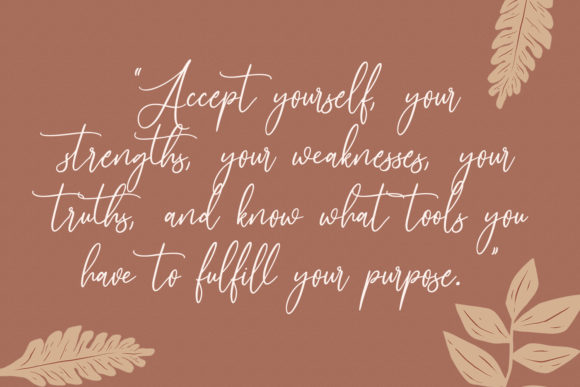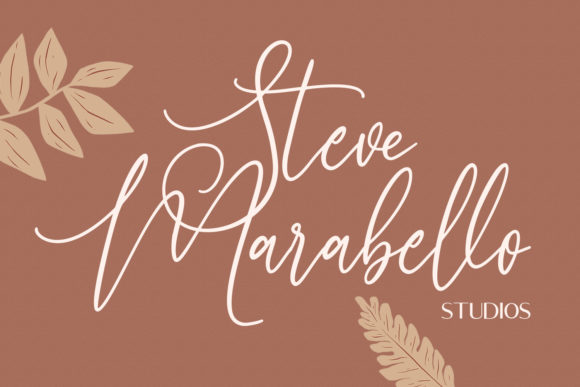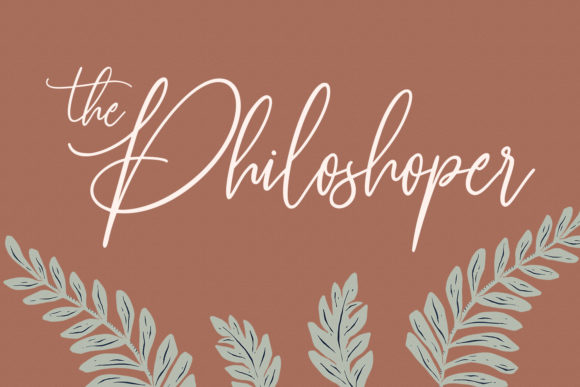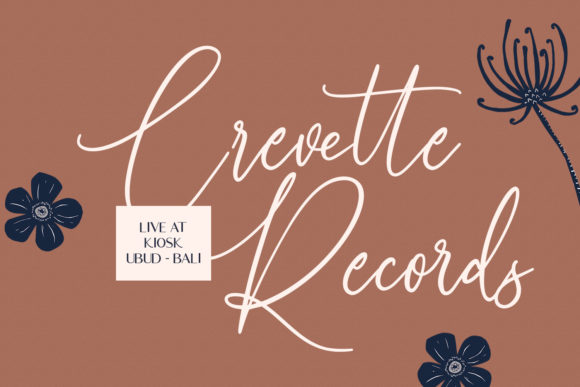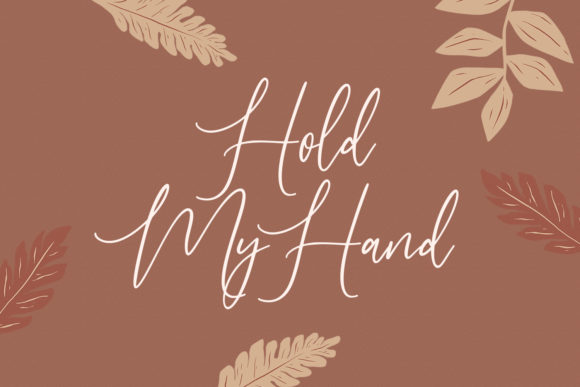
The Perfect Script: Elevating Your Designs with the Alto Bonito Font
Have you ever sat in front of your computer, staring at a blank page, trying to come up with the perfect font to match your creative vision? It’s a moment we’ve all been there – the font gods are calling, and we need to answer. For designers, finding the right font can make all the difference between a mediocre design and a masterpiece.
That’s where the Alto Bonito Font comes in – a fancy handwritten script font that’s sure to elevate your designs to the next level. With its medium contrast strokes, fun characters, ligatures, and alternates, this font is the perfect tool for adding a touch of whimsy and personality to your work. Whether you’re designing a wedding invitation, a logo, or a social media post, the Alto Bonito Font is sure to bring your creative vision to life.
- Unique Characteristics: A modern, elegant script font with a touch of sophistication and refinement, ideal for creative projects, invitations, and branding
Alto Bonito Font Review
Overall, I think Alto Bonito is a solid choice for designers looking for a stylish font. It has a lot to offer, and here are some of the things that work well: ✨
- Unique design: Alto Bonito has a distinctive aesthetic that sets it apart from other fonts. Its bold lines and elegant curves make it perfect for headlines and titles.
- High legibility: Despite its playful design, Alto Bonito is surprisingly easy to read, even at smaller font sizes.
- Great for creative projects: The font’s whimsical feel makes it an excellent choice for branding, advertising, and other creative projects where you want to make a statement.
However, like any font, Alto Bonito has its limitations: ⚠️
- Not suitable for body text: While Alto Bonito is great for headlines, it’s not the best choice for large blocks of text, as it can be tiring to read.
- Not as versatile: The font’s unique design might not be suitable for all types of projects or brands, so it’s essential to consider your design goals before using it.
Overall, I think Alto Bonito is a great addition to any designer’s toolkit, but it’s essential to use it judiciously and consider its limitations. With the right project, Alto Bonito can be a real showstopper.
For best results, use Alto Bonito font for titles, headings, and other display text. It’s perfect for creating a unique and eye-catching design. You can also use it for body text if you want to add a touch of elegance to your content.